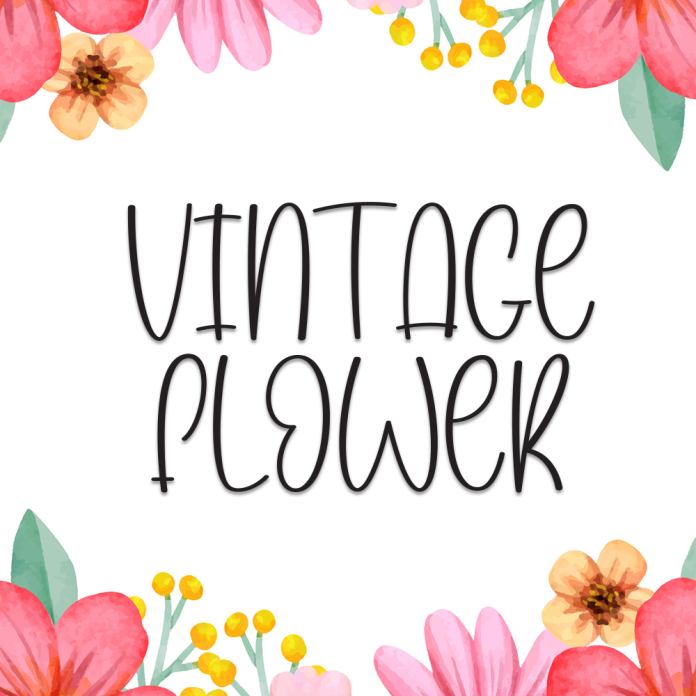
Vintage Flower is a charming display font that blends floral inspiration with retro aesthetics. Each letter is thoughtfully crafted with a touch of ornamental detail, making it perfect for vintage-themed designs.
Decorative display style with floral elegance
Retro charm with graceful curves and soft edges
Perfect for wedding invitations, logos, boutique branding, and vintage posters
Bring a nostalgic and romantic feel to your designs with Vintage Flower – where timeless elegance blooms in every character.